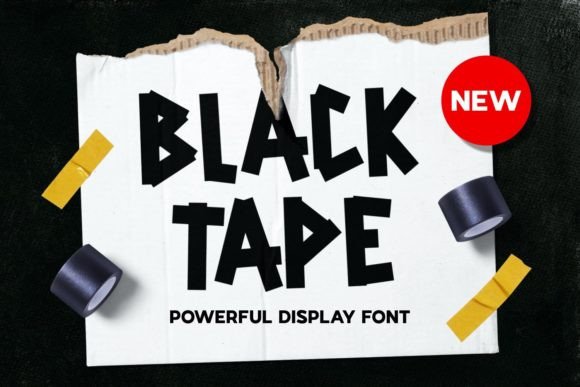
When your creative scripts and stories demand a font that exudes both fun and coolness, look no further than Blacktape, a display font designed by Imoodev. This captivating typeface will leave you astounded by the incredible outcomes it generates.
Blacktape's playful and quirky personality shines through in every character, adding an irresistible charm to your designs. Its bold strokes and dynamic curves dance across the page, captivating the reader's attention and drawing them into your captivating narratives. Whether you're crafting movie scripts, TV shows, or captivating stage plays, Blacktape provides the perfect backdrop for your words to come alive.
Beyond its undeniable aesthetic appeal, Blacktape is also a remarkably functional font, meticulously crafted to ensure effortless readability. Its well-defined letterforms maintain their clarity and crispness even at smaller sizes, making it ideal for lengthy scripts and dense blocks of text. Whether you're a seasoned screenwriter, a budding playwright, or an aspiring novelist, Blacktape will faithfully accompany you on your creative journey, transforming your scripts into captivating visual feasts.
With Blacktape as your font of choice, prepare to unveil a world of endless possibilities. Create movie posters that ignite curiosity and anticipation. Craft TV show title sequences that leave a lasting impression. Design playbills that entice audiences with a tantalizing glimpse into the extraordinary world awaiting them. Blacktape is the versatile font that adapts seamlessly to any creative endeavor, amplifying your ideas and captivating your audience from the very first glance.
So, as you embark on your creative endeavors, let Blacktape be your trusted companion, guiding you along the path to storytelling greatness. With each stroke of the keyboard, feel the magic of your words come alive, effortlessly flowing through the curves and lines of this remarkable font. Experience the transformative power of Blacktape and witness your scripts evolve into captivating masterpieces, ready to ignite the imaginations of readers and viewers alike.
Embrace the allure of Blacktape, the font that breathes life into your scripts. Unleash your creativity, immerse yourself in the boundless realm of storytelling, and leave your audience spellbound with every word. Blacktape awaits, eager to become an integral part of your creative journey, transforming your scripts into works of art that resonate with readers and viewers alike.